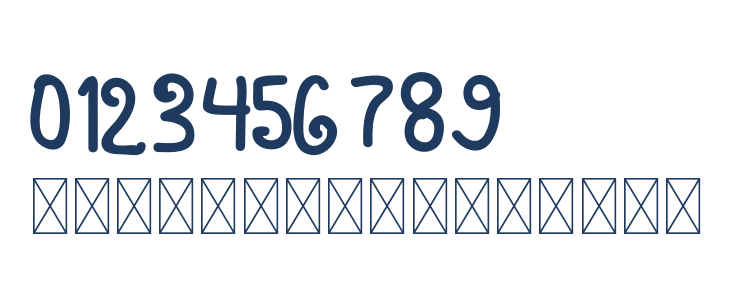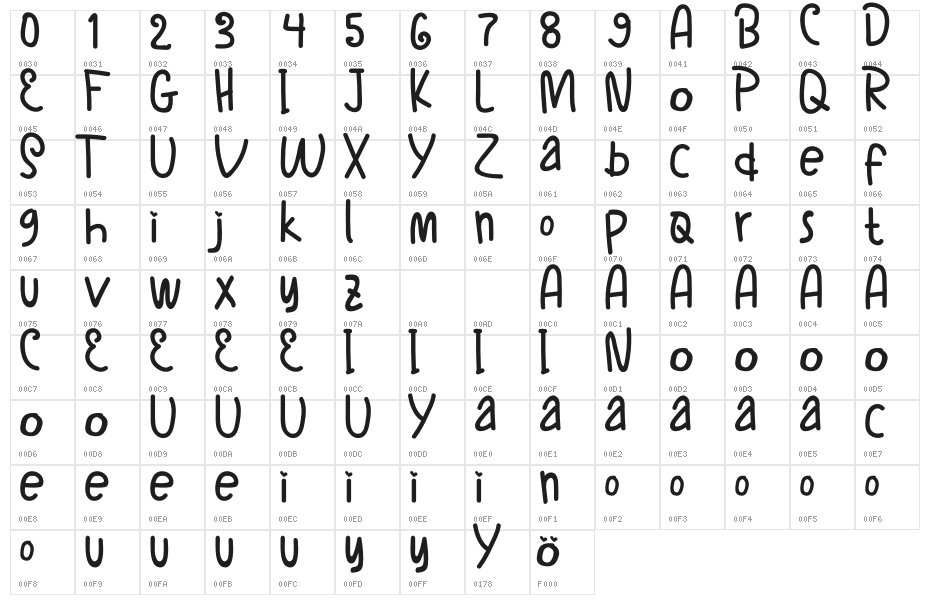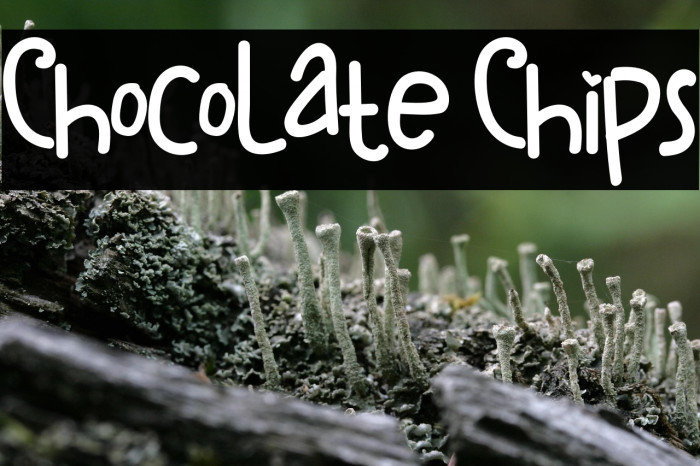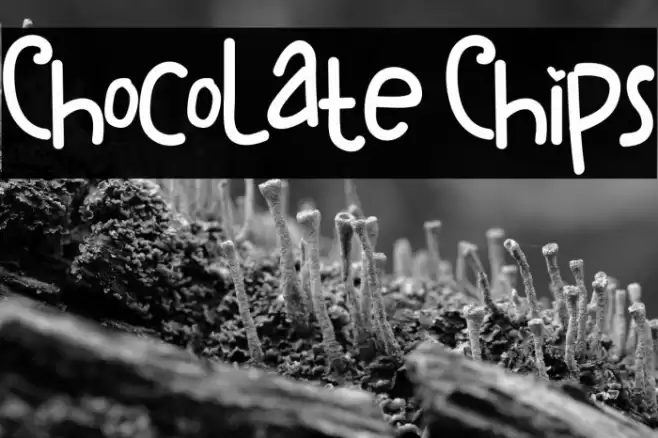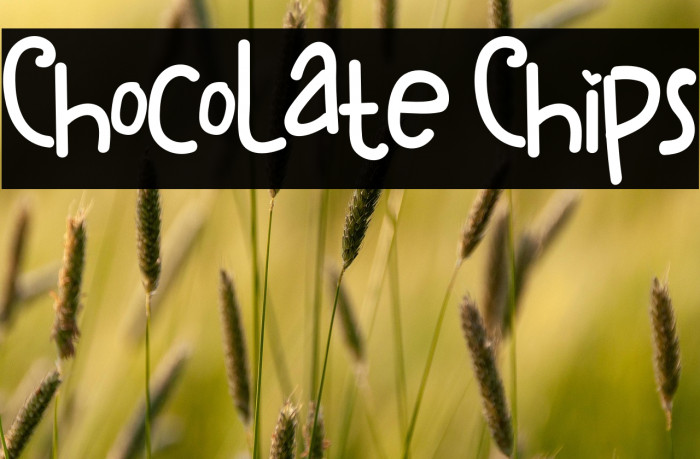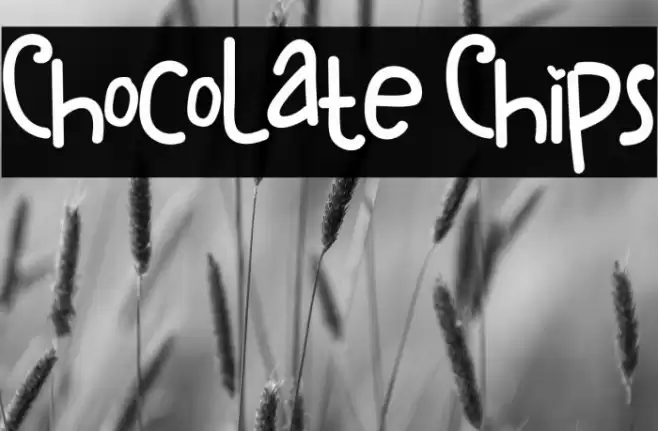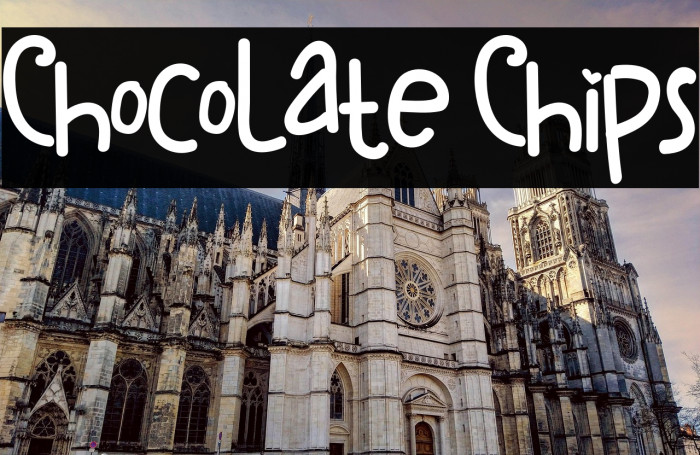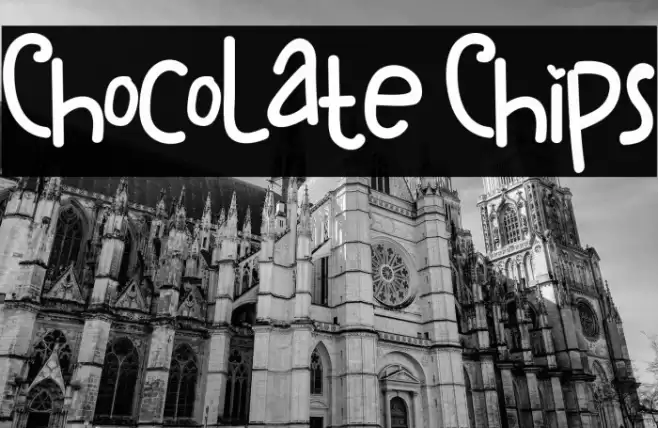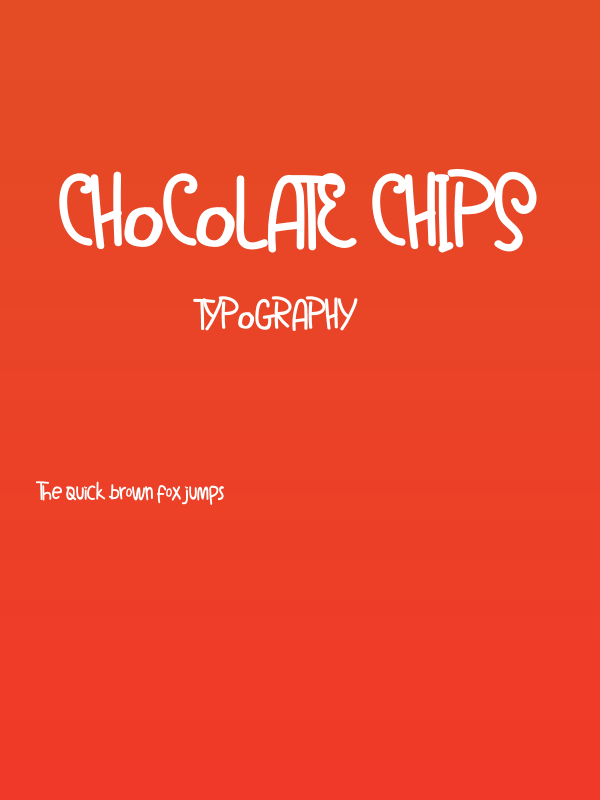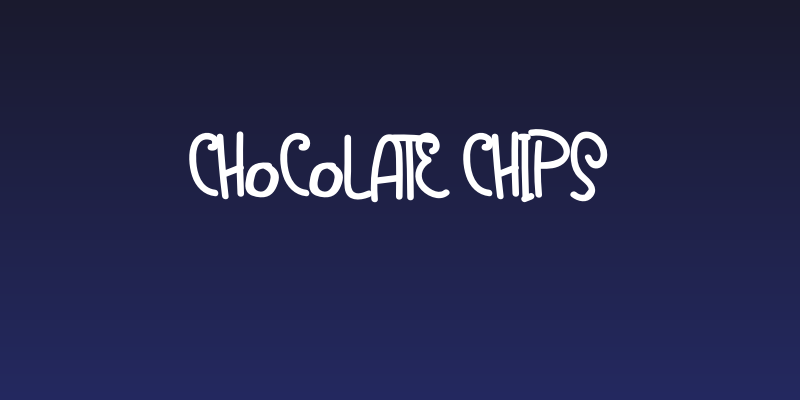
ChocoLate Chips Font
ChocoLate Chips Description
This playful and bold font features a handwritten style with a whimsical flair. The letters are rounded and slightly irregular, giving it a casual and friendly appearance. The uppercase and lowercase letters maintain a consistent flow, while the numbers and special characters complement the overall design. Its thick strokes and smooth curves make it highly legible and suitable for a variety of creative projects. The font exudes a sense of fun and spontaneity, perfect for designs that aim to capture attention and convey a lively message.
| Proposed Projects | Ideal for children's books, playful branding, greeting cards, and social media graphics. |